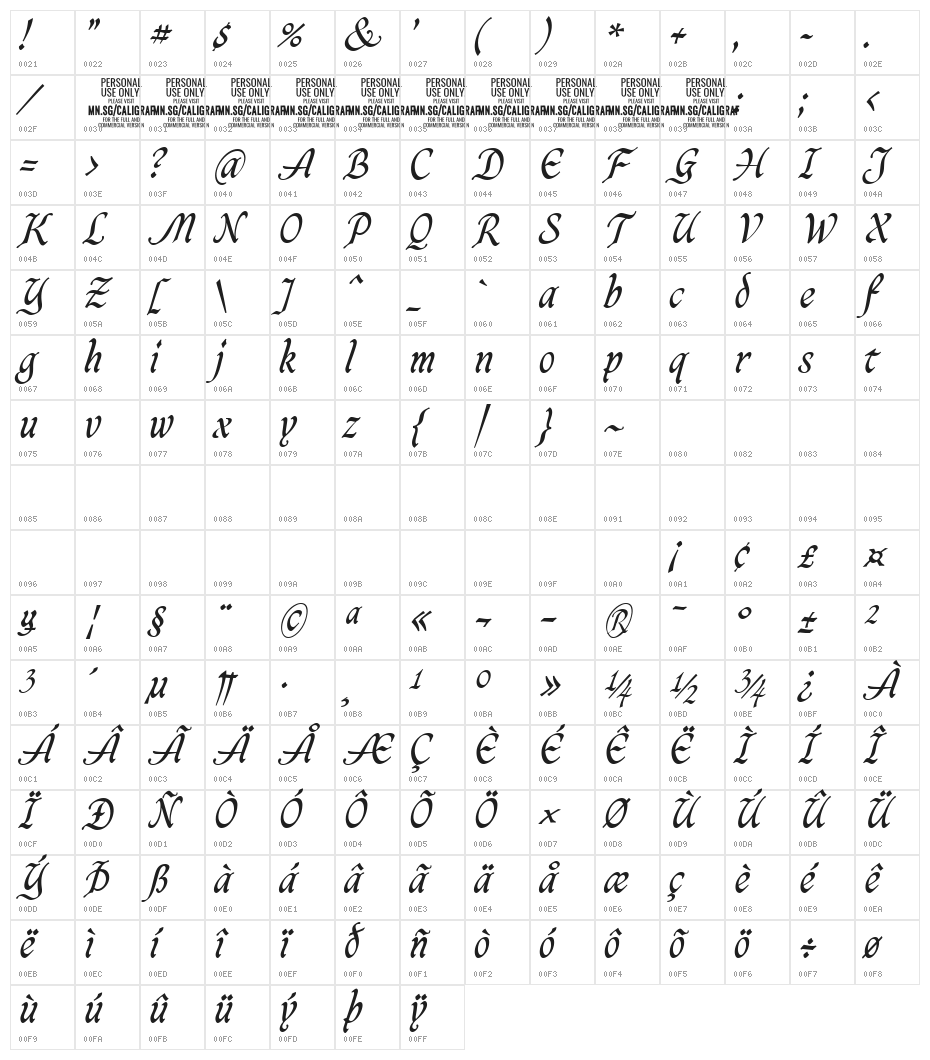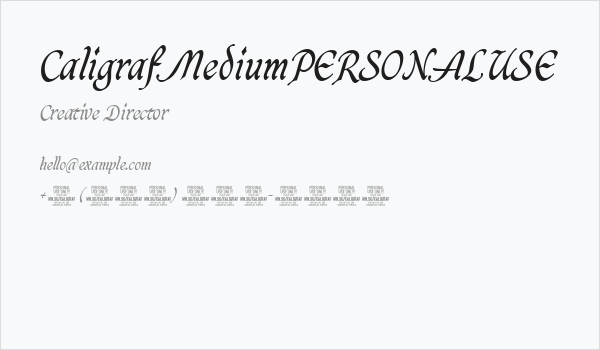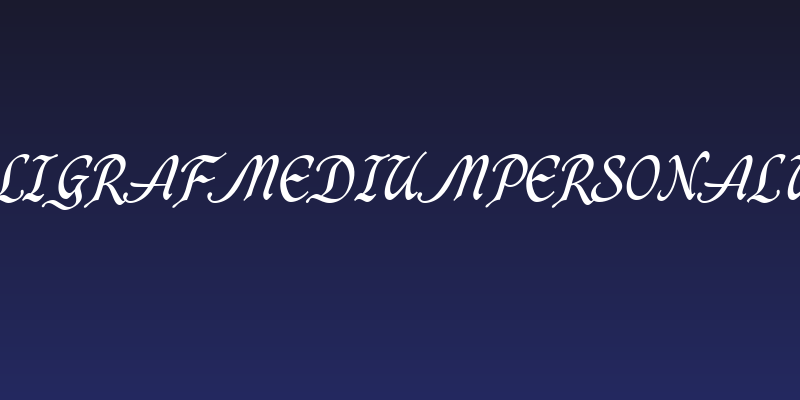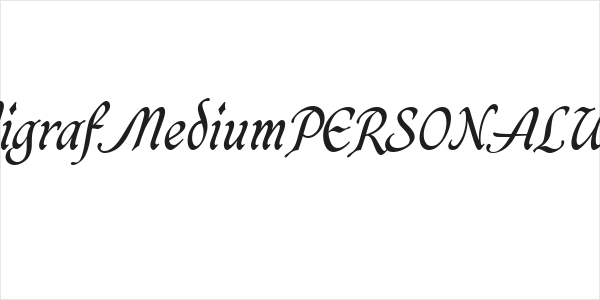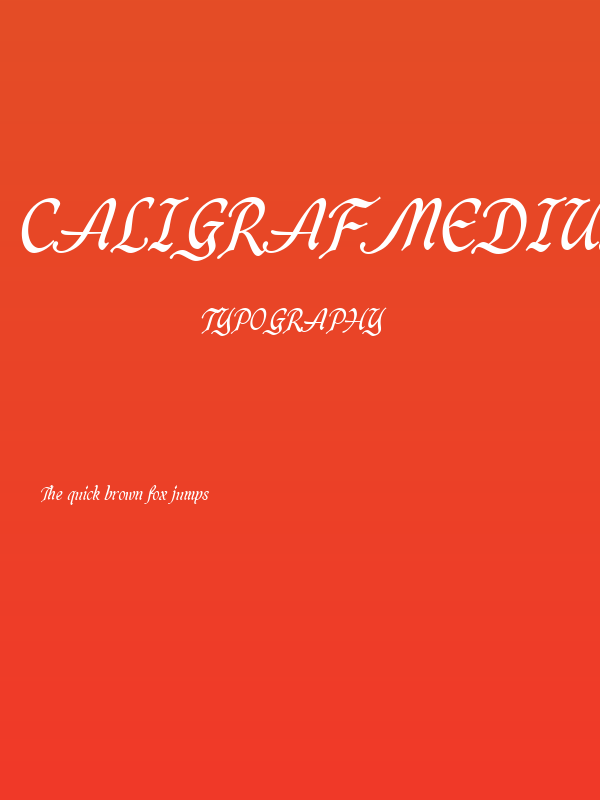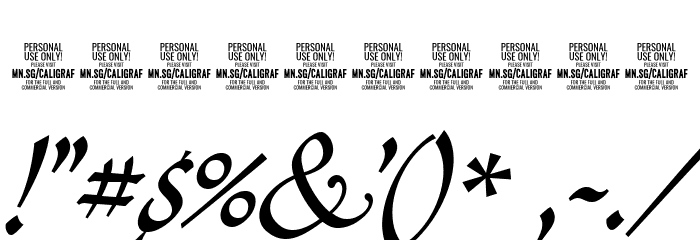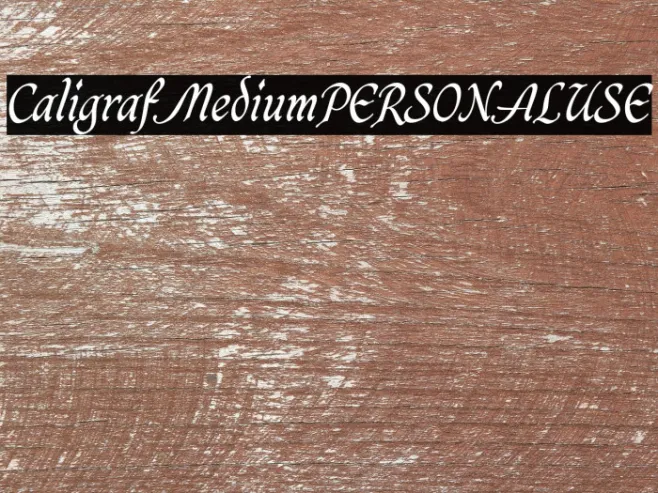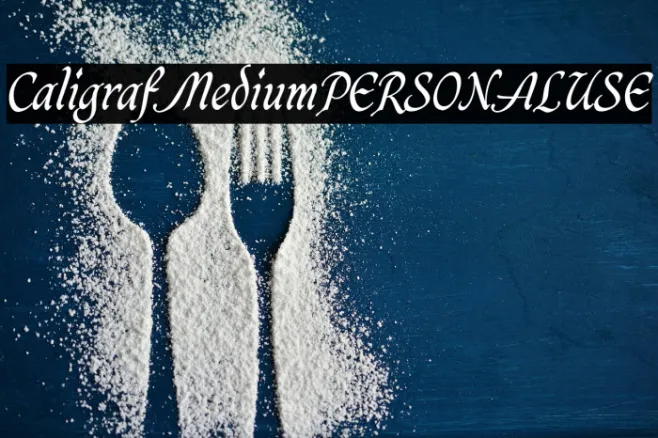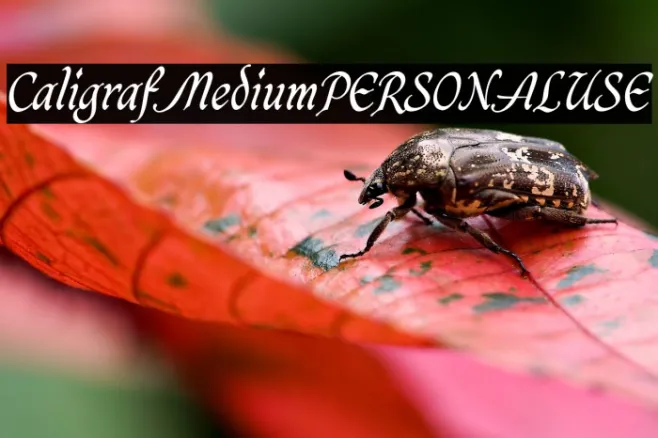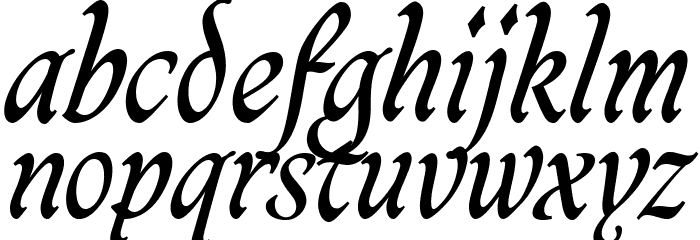
CaligrafMediumPERSONALUSE Font
CaligrafMediumPERSONALUSE Description
This font features a classic calligraphic style with elegant, flowing strokes that give it a sophisticated and artistic appearance. The uppercase letters are characterized by their sweeping curves and sharp serifs, while the lowercase letters maintain a consistent flow with a slightly more restrained design. The numerals and special characters complement the overall aesthetic, maintaining the same calligraphic flair. The font's design is reminiscent of traditional handwriting, making it suitable for projects that require a touch of elegance and formality.
| Proposed Projects | Ideal for wedding invitations, formal event programs, certificates, and branding that requires a touch of elegance. |